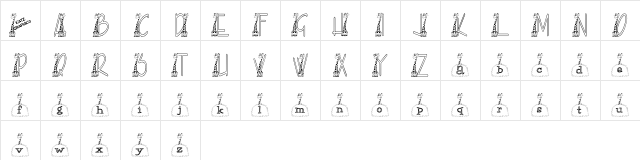
KGGIRAFFE Regular Font Preview
KGGIRAFFE Regular
KGGIRAFFE Regular Font Details
Design Context for KGGIRAFFE Typeface
KGGIRAFFE is a composed and adaptable typeface that performs quietly and consistently across a wide range of design contexts.